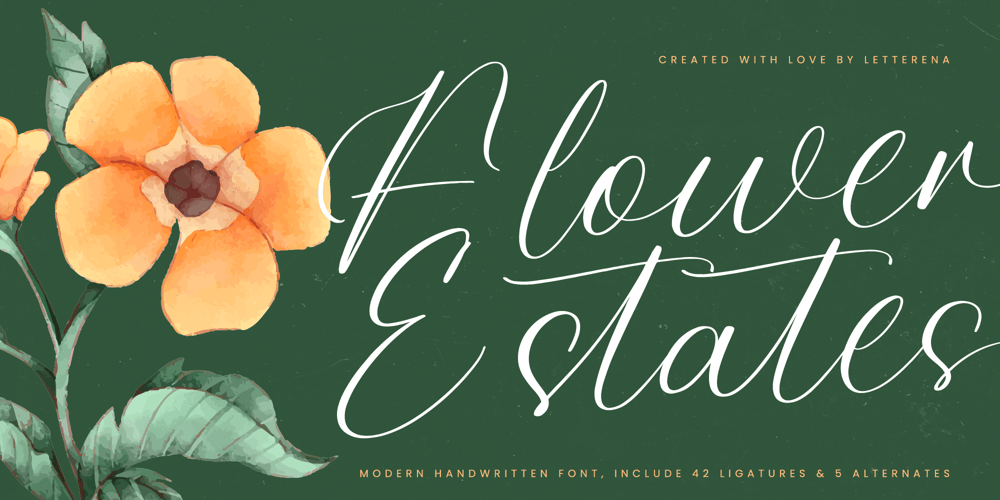
Flower Estates
Flower Estates font
Flower Estates Font Family was designed by Heru Utama Putra and published by Letterena Studios. Flower Estates contains 2 styles and family package options. Flower Estates is an elegant script font that features flowing, cursive letters. It has a luxurious and sophisticated feel, perfect for adding a touch of class to invitations, greeting cards, or any design that needs a refined, stylish look.